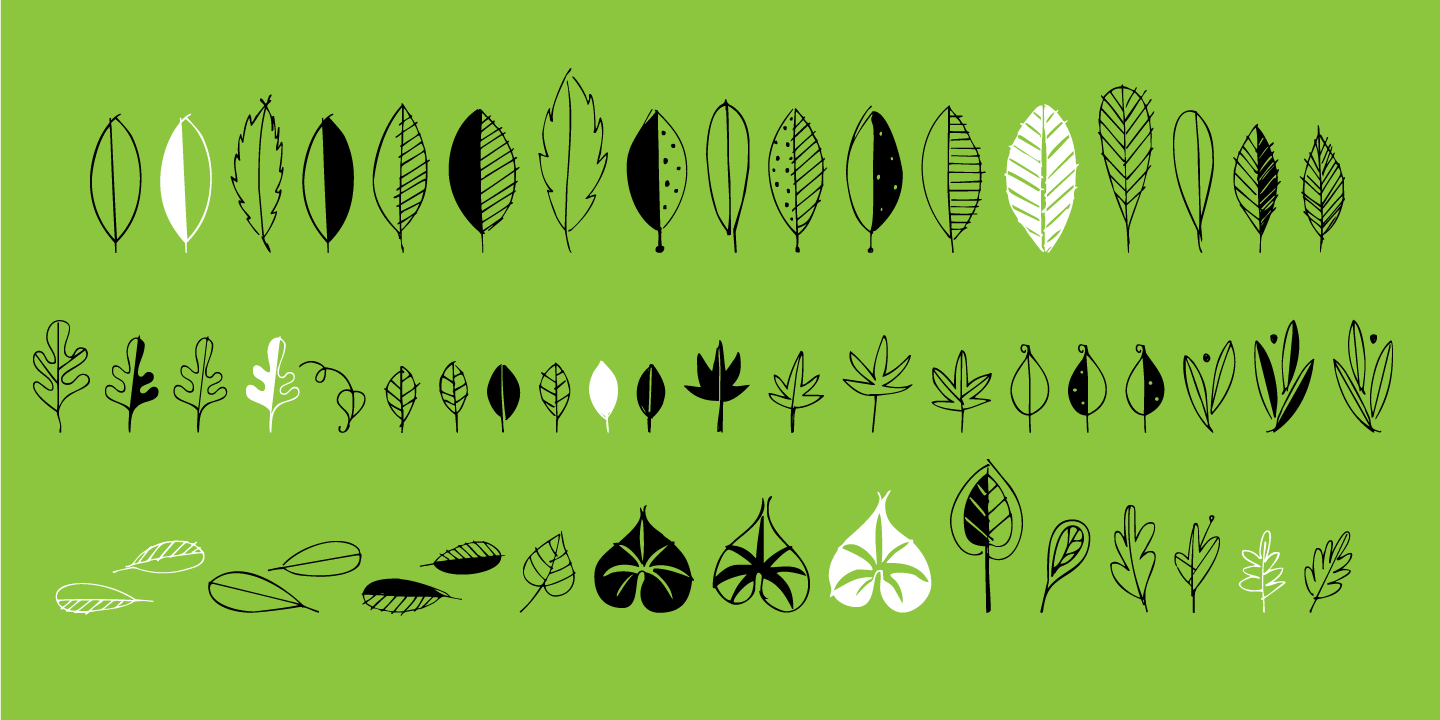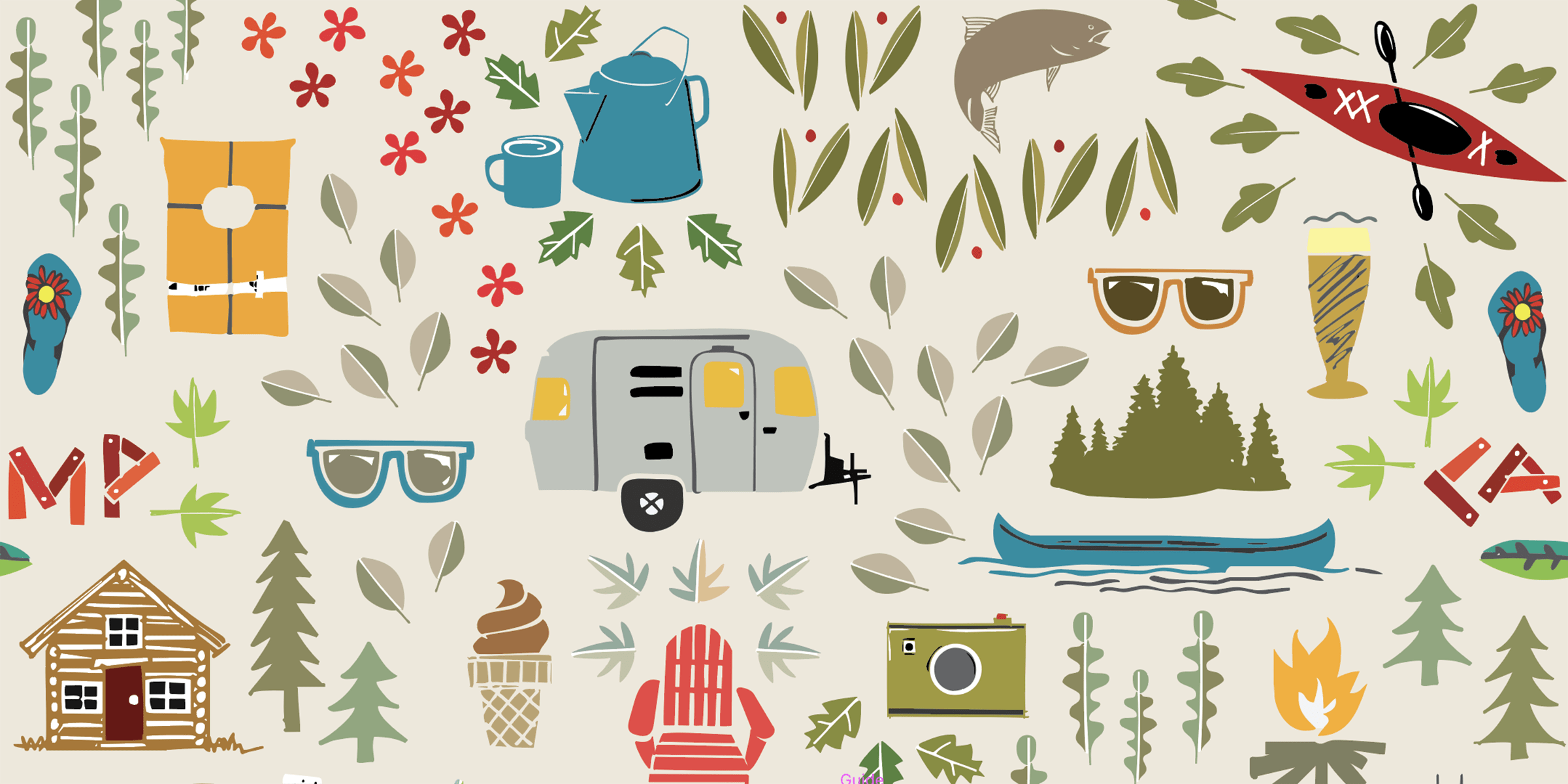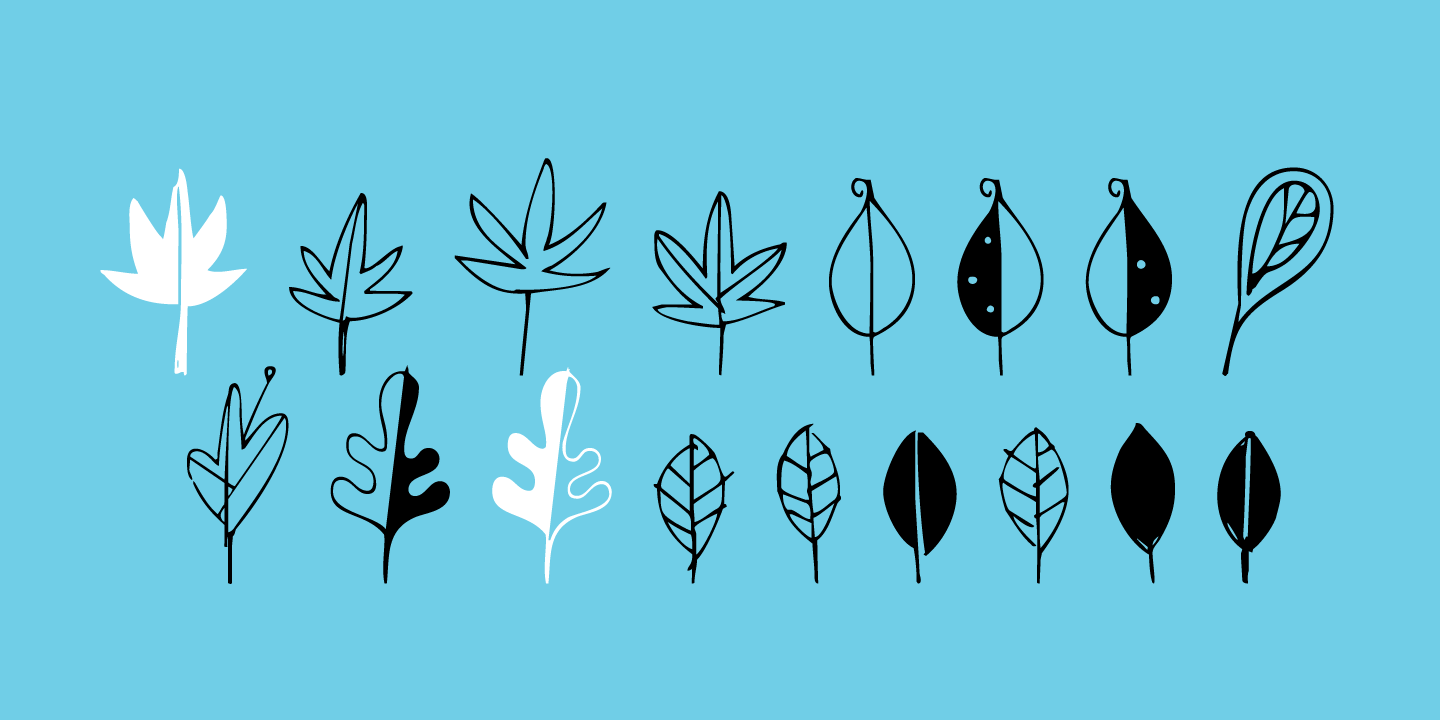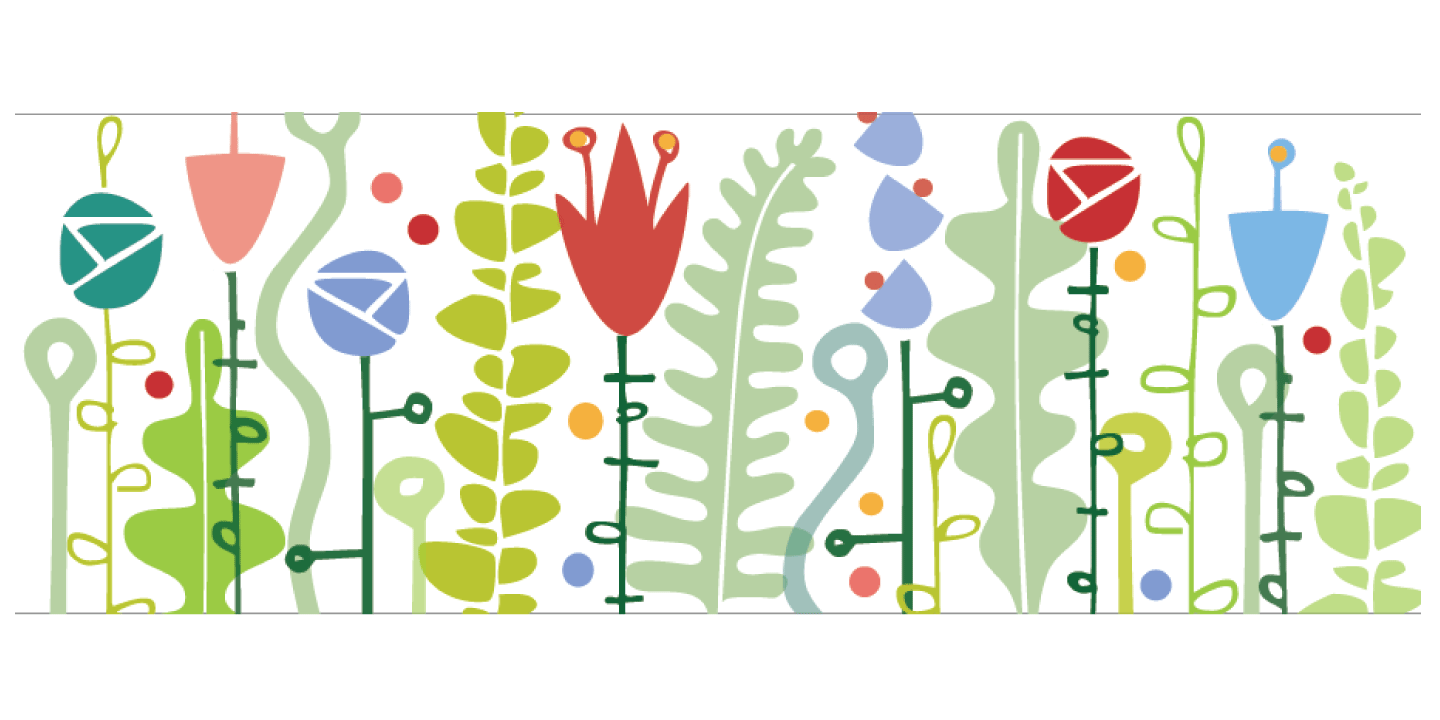
Leaf Doodles
Font Family by Outside-the-Line
Leaves... lots of leaves... all hand drawn... 62 of them in fact. Big ones, small ones, line ones, reverse ones to use alone or together in groupings. A very versatile font.